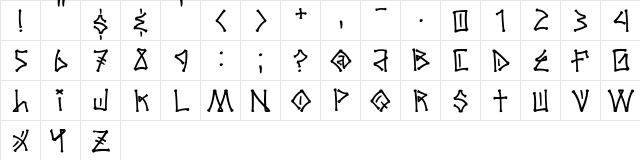
El Barrio Regular
Design Context for El Barrio Typeface
El Barrio is a composed and adaptable typeface that performs quietly and consistently across a wide range of design contexts.